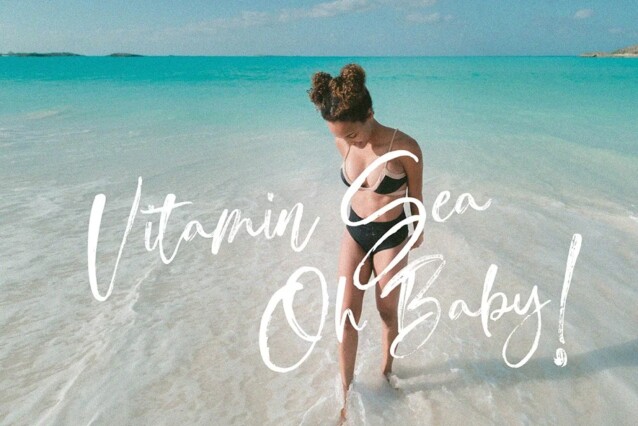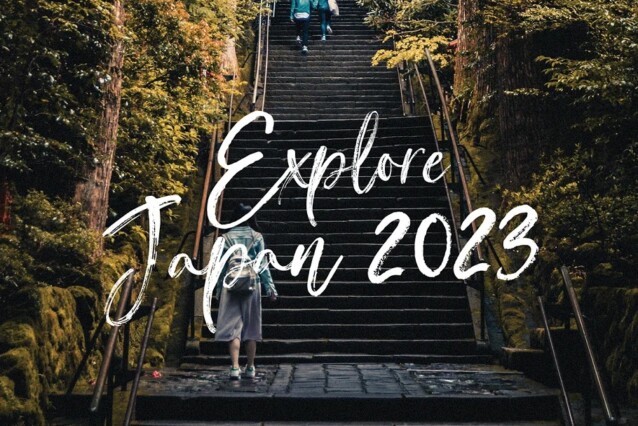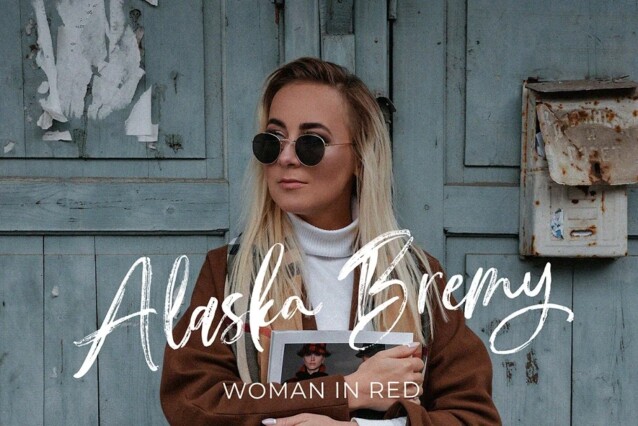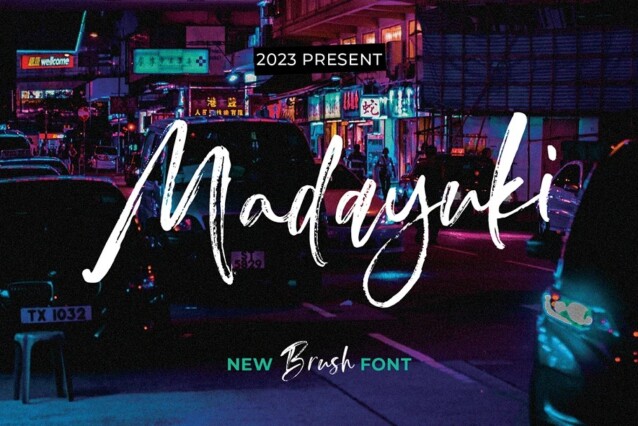
Madayuki Font
Madayuki Font is a modern handwritten brush font crafted & designed by Gatype. With natural hand strokes, this font will add an attractive touch to your design projects. This font is perfect for branding, wedding invitations, magazines, mugs, business cards, quotes, posters and more.